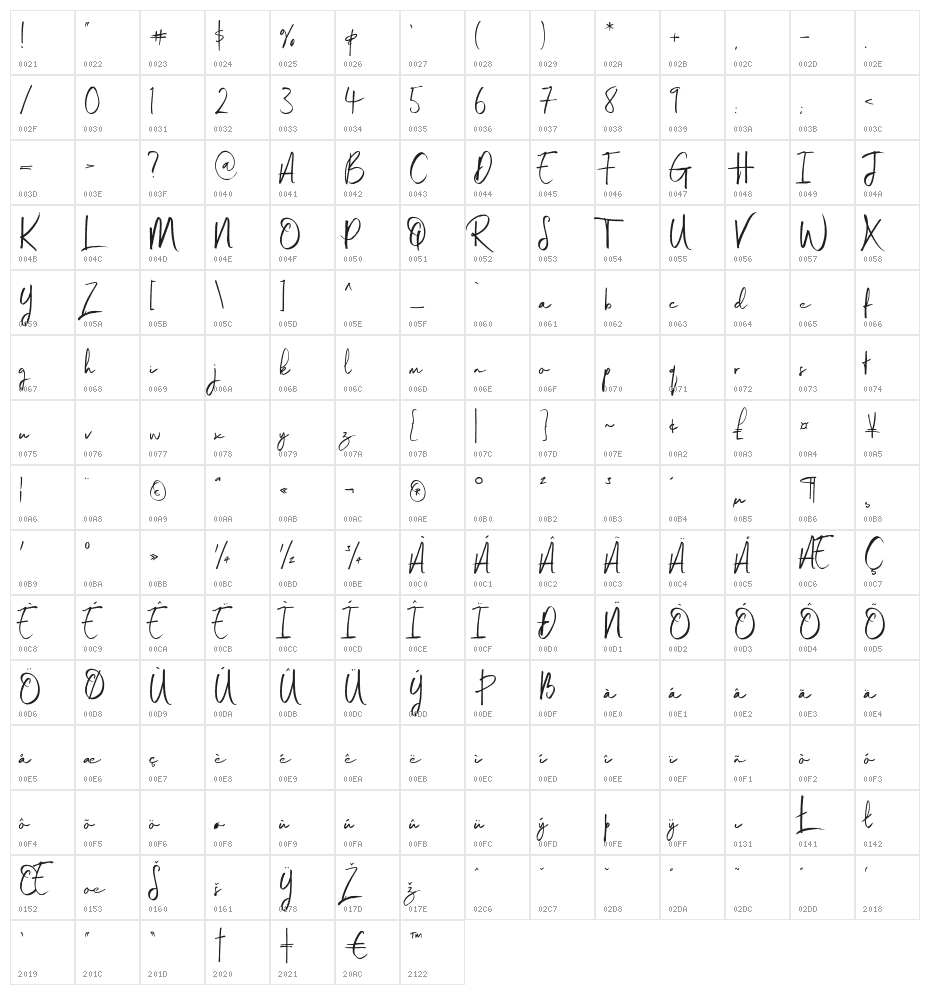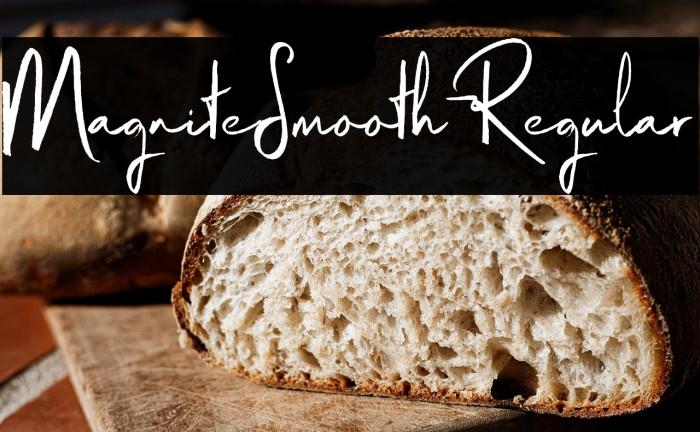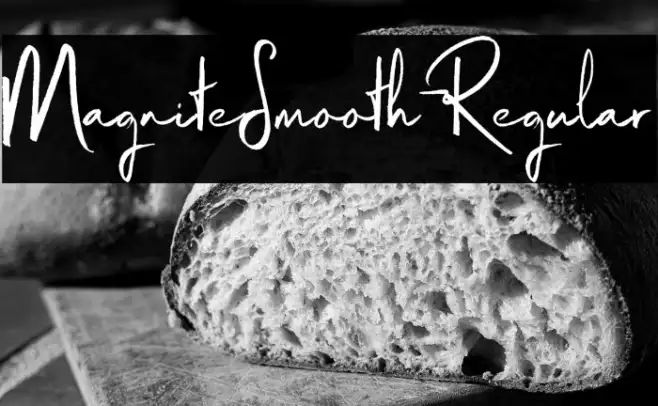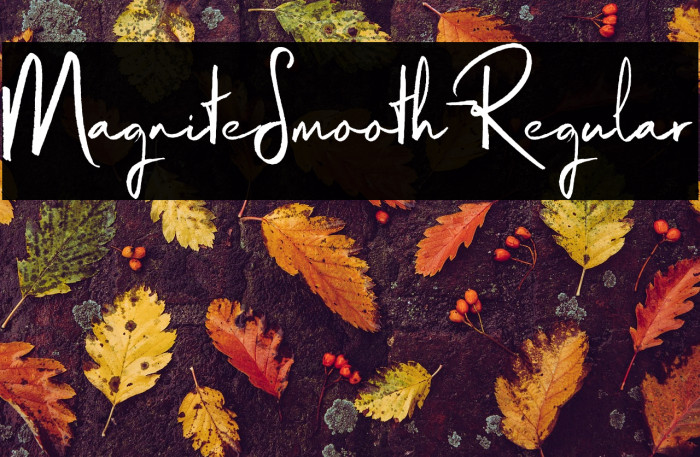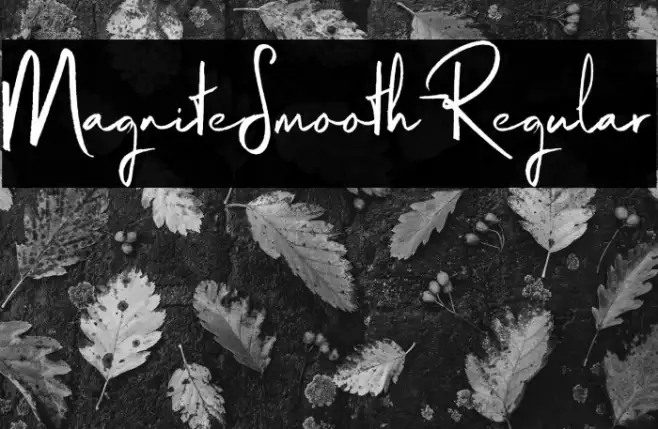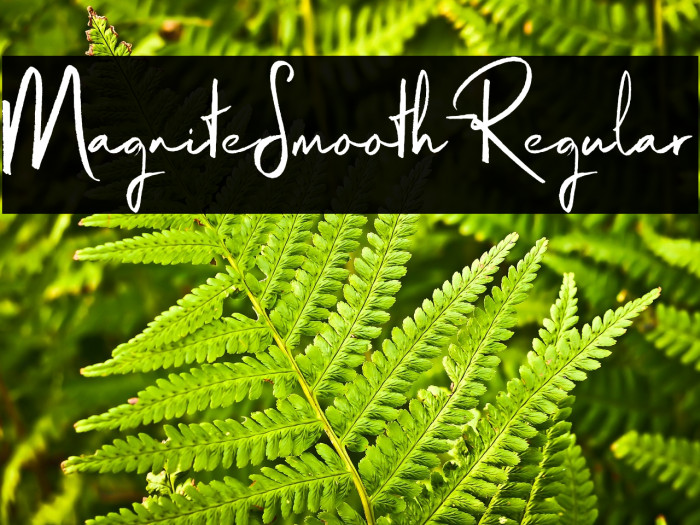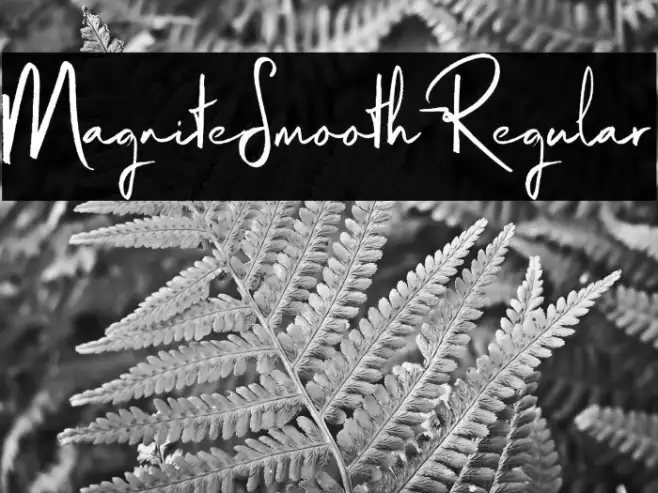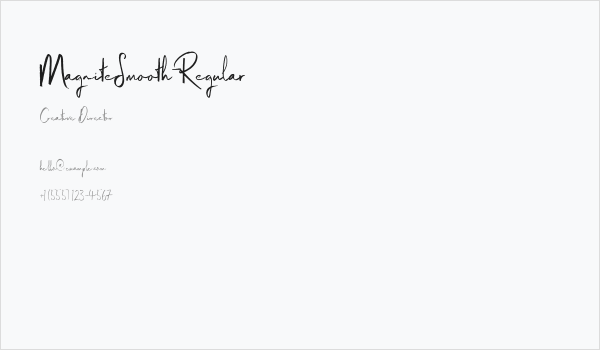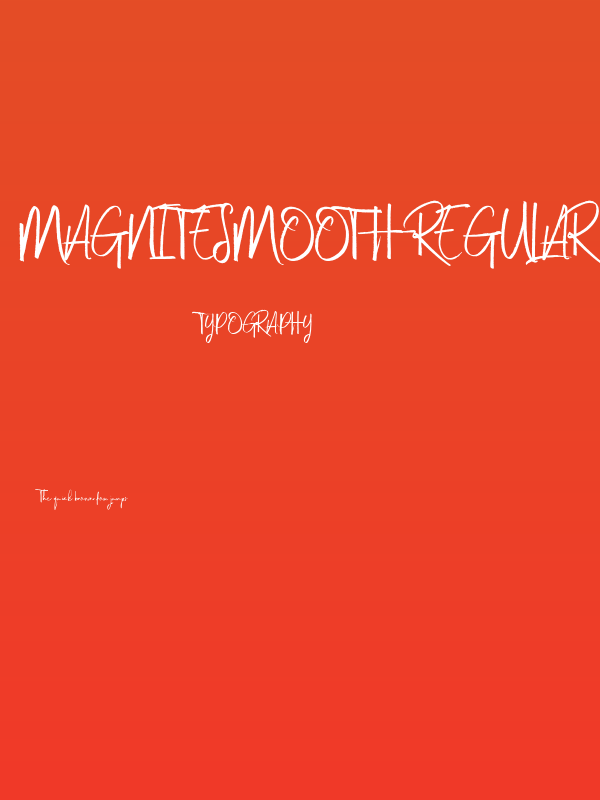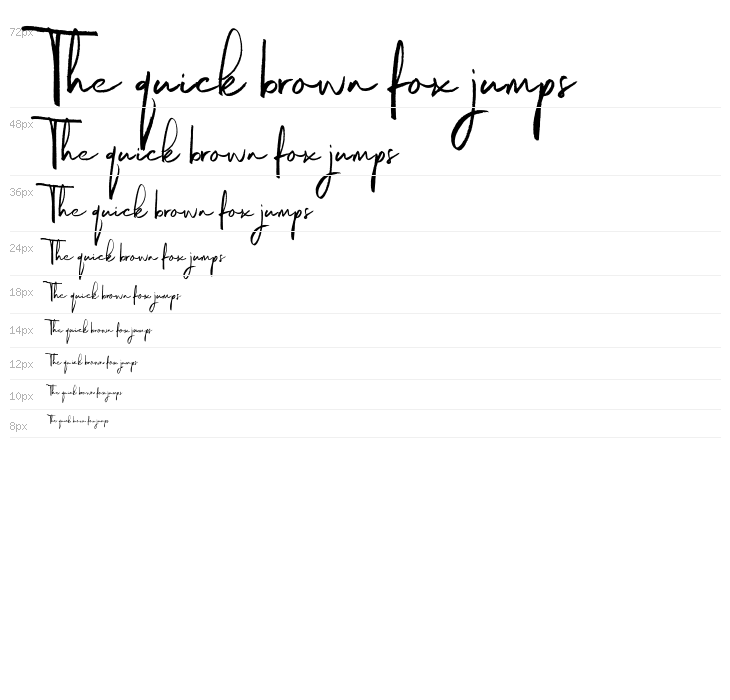
MagniteSmooth-Regular Font
MagniteSmooth-Regular Description
This font exhibits a lively and expressive handwritten style, characterized by its fluid and dynamic strokes. The uppercase letters are bold and elongated, with a playful yet sophisticated flair. The lowercase letters maintain a consistent flow, enhancing the overall elegance of the typeface. Numbers and special characters are crafted with the same attention to detail, ensuring a cohesive look across all elements. The font's organic and artistic nature makes it suitable for creative projects that require a personal touch.
| Proposed Projects | Ideal for wedding invitations, greeting cards, personal branding, and artistic posters. |